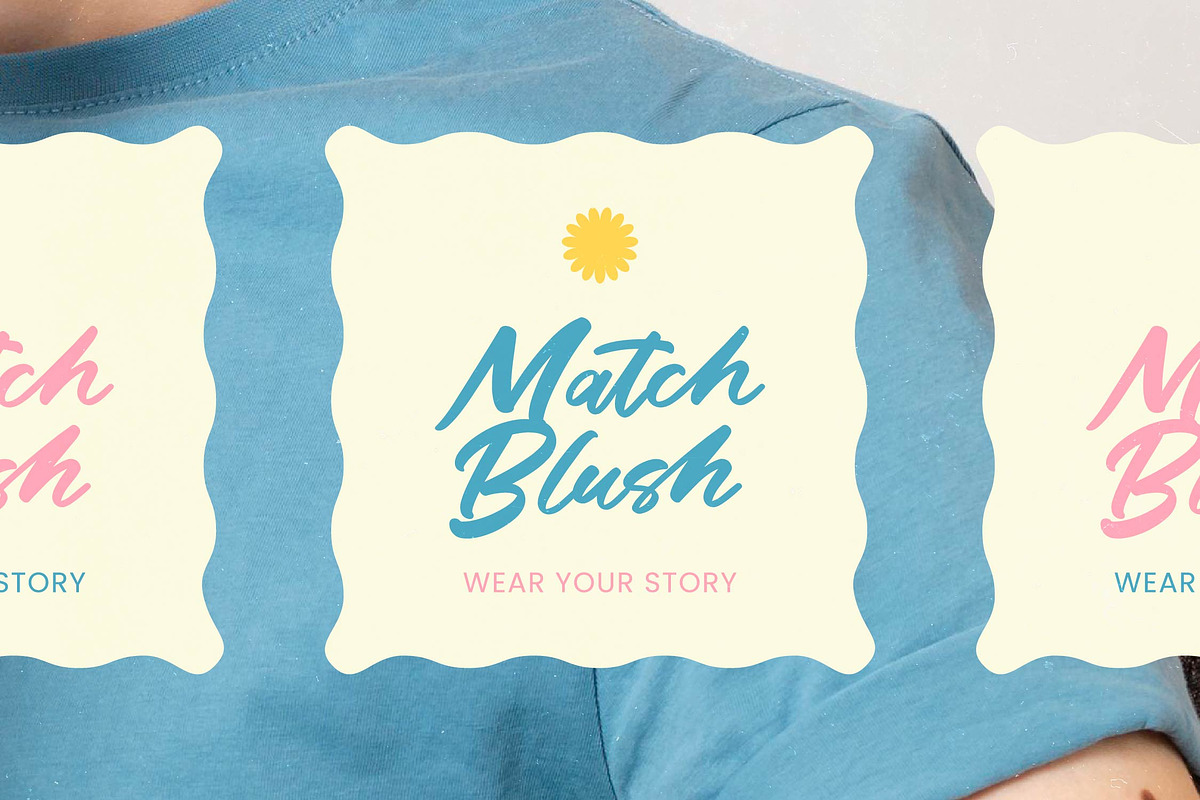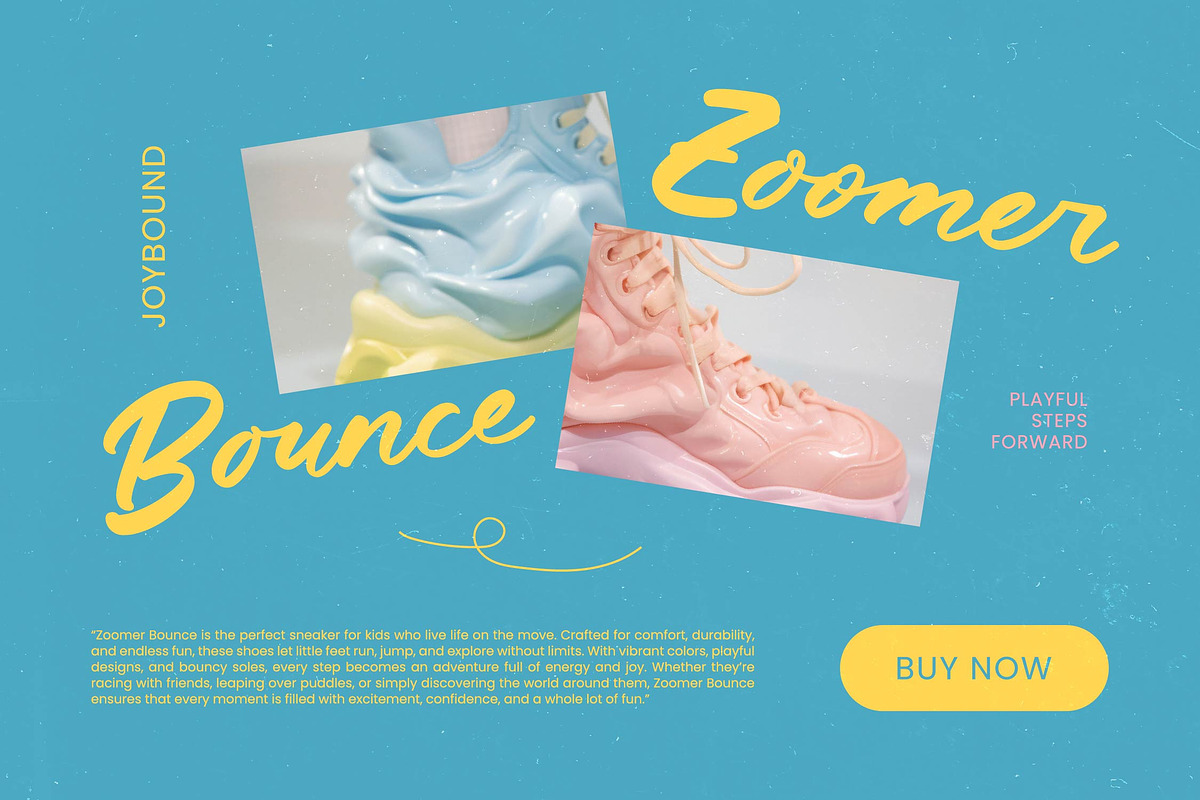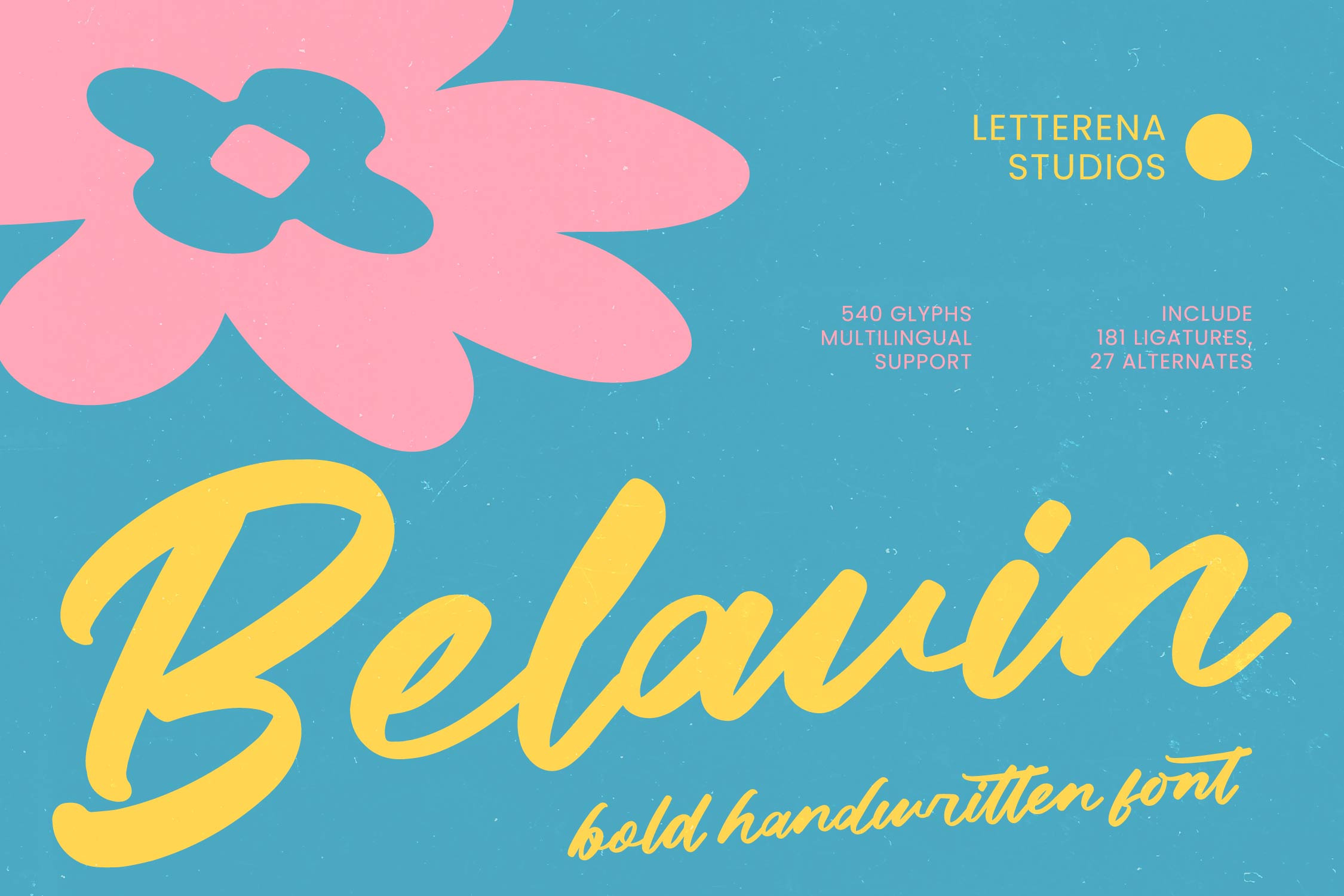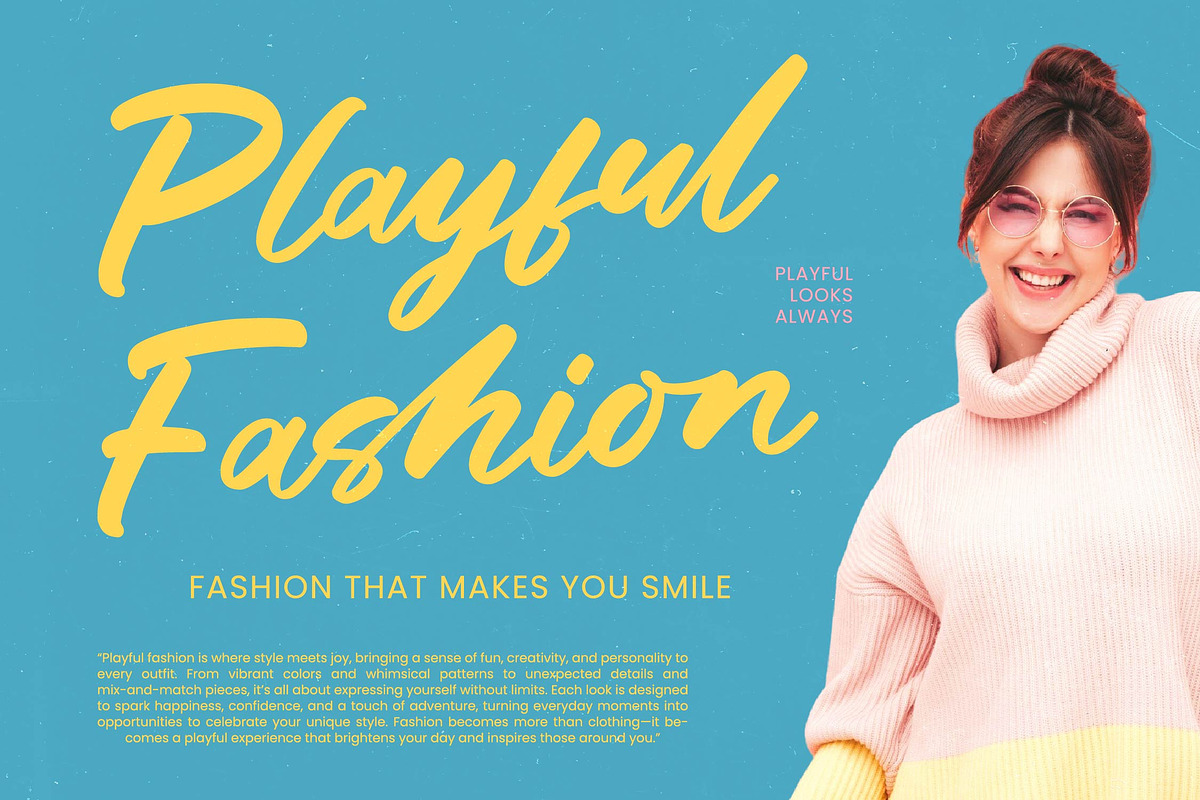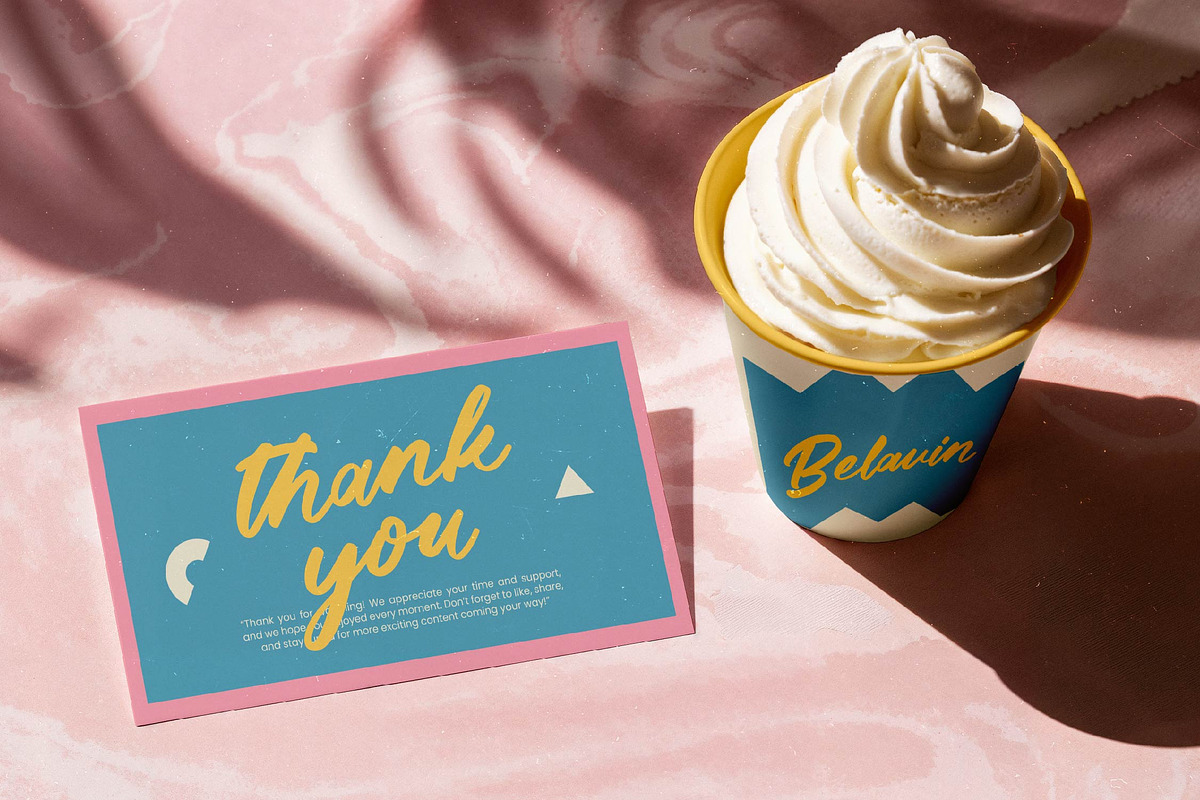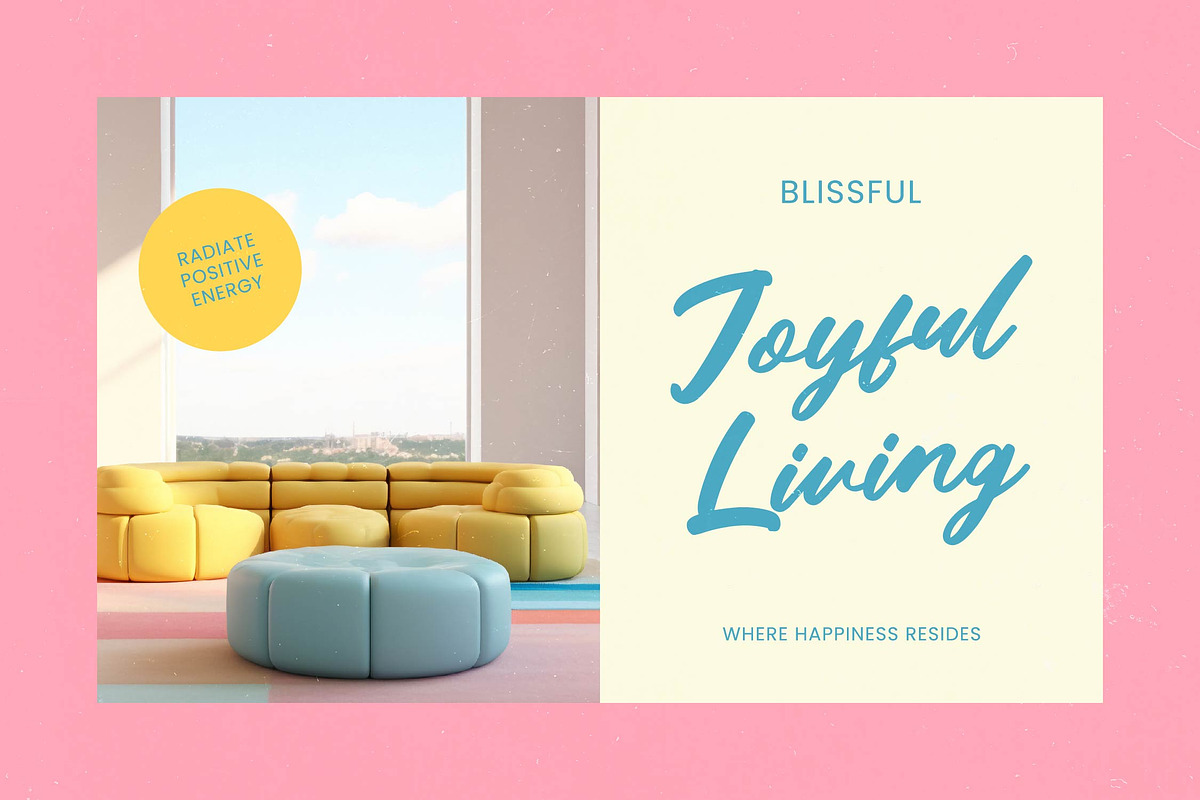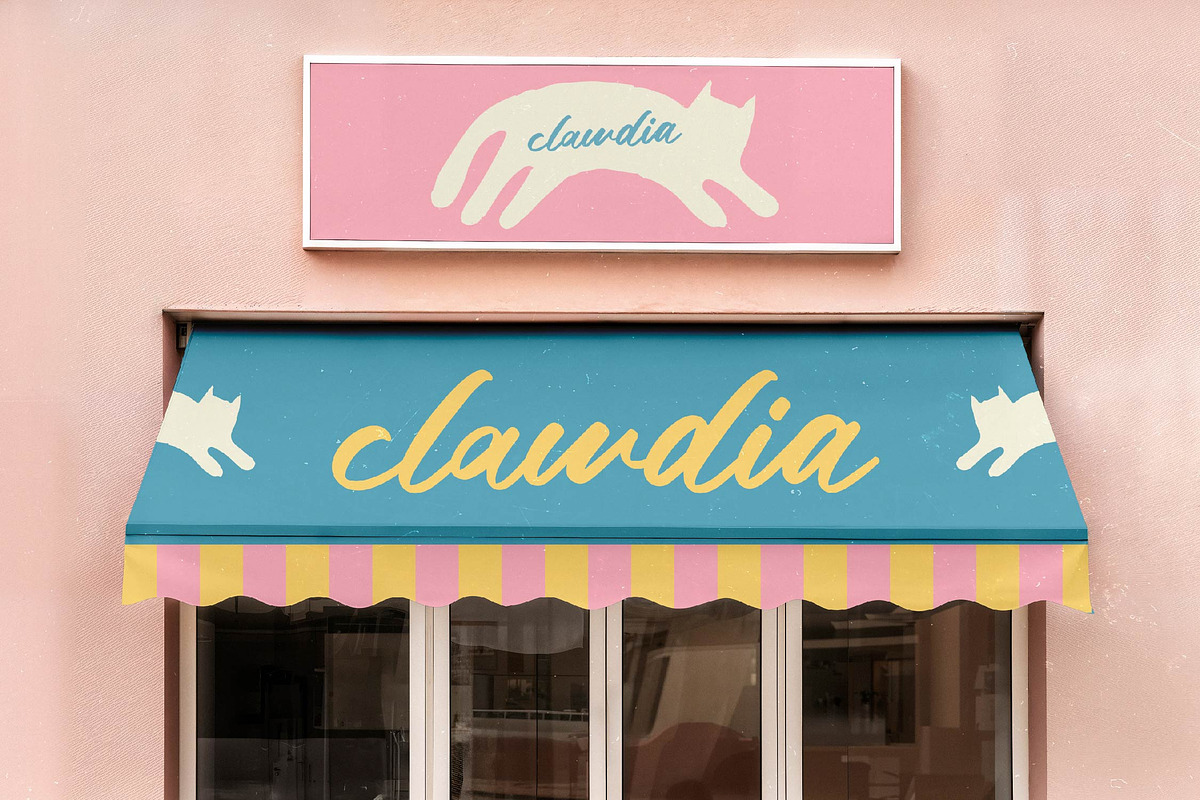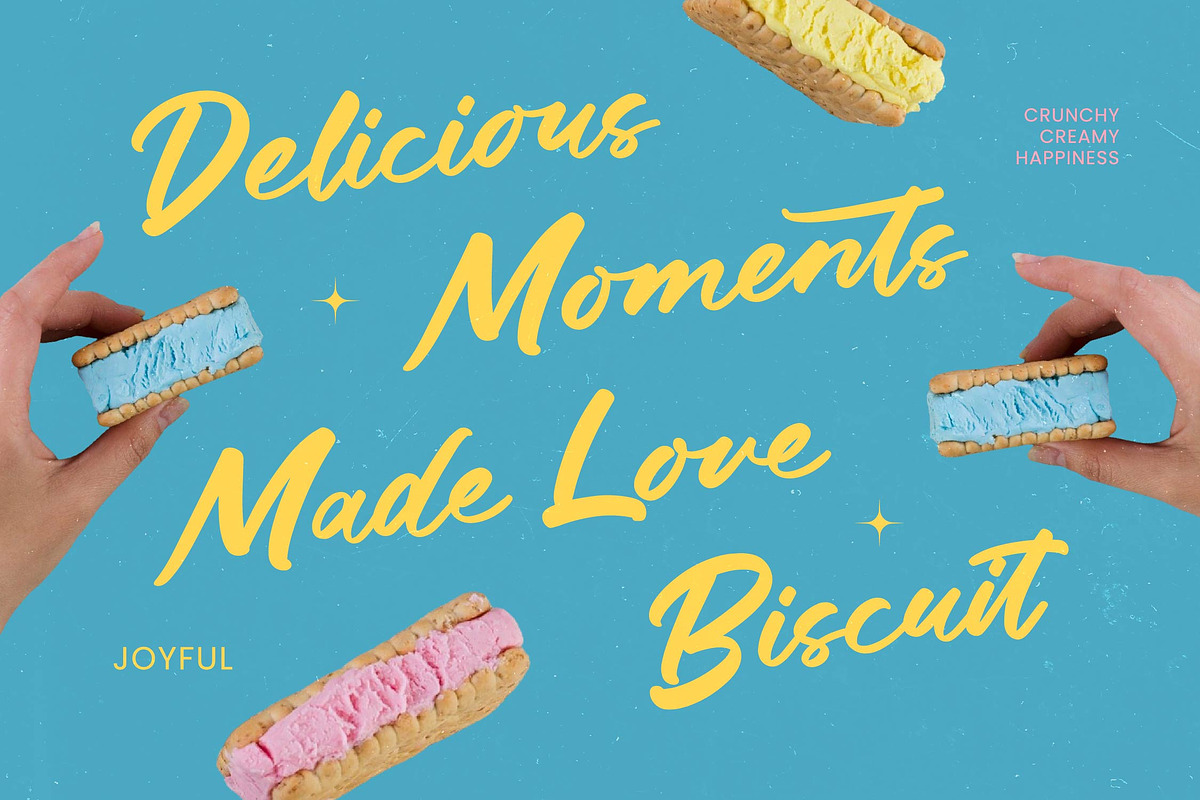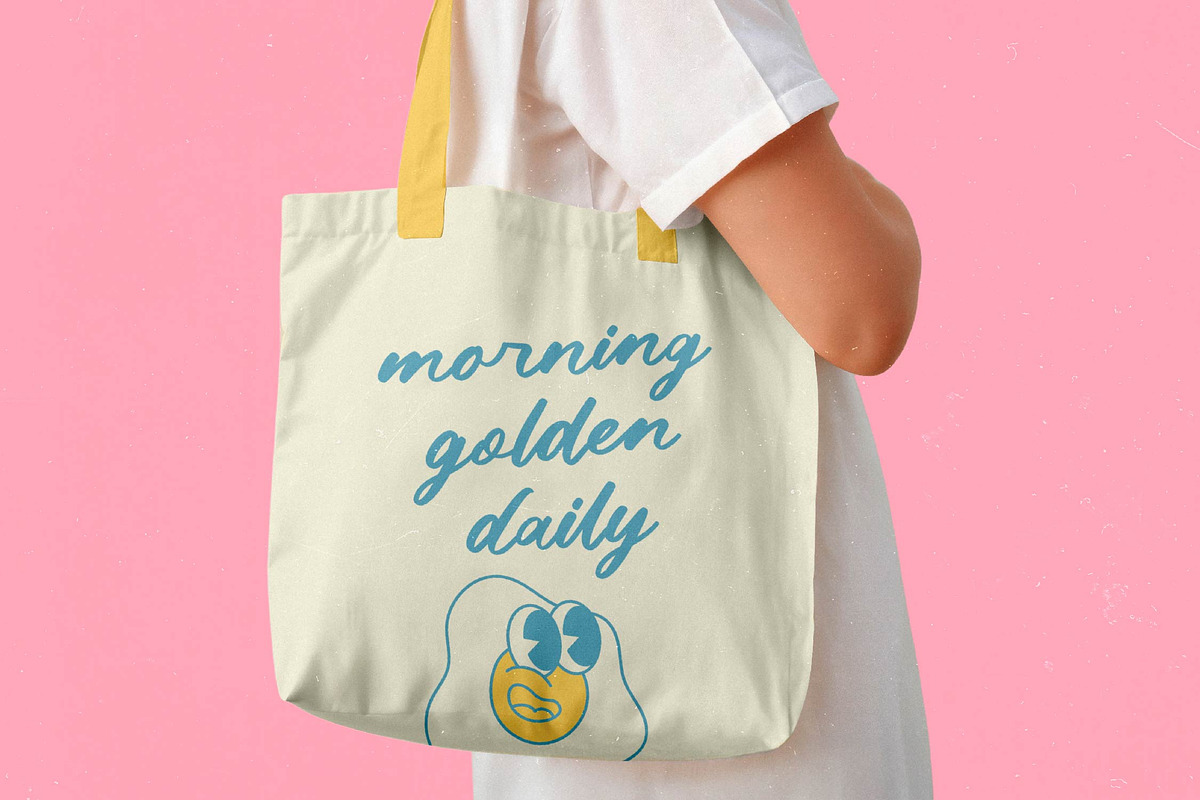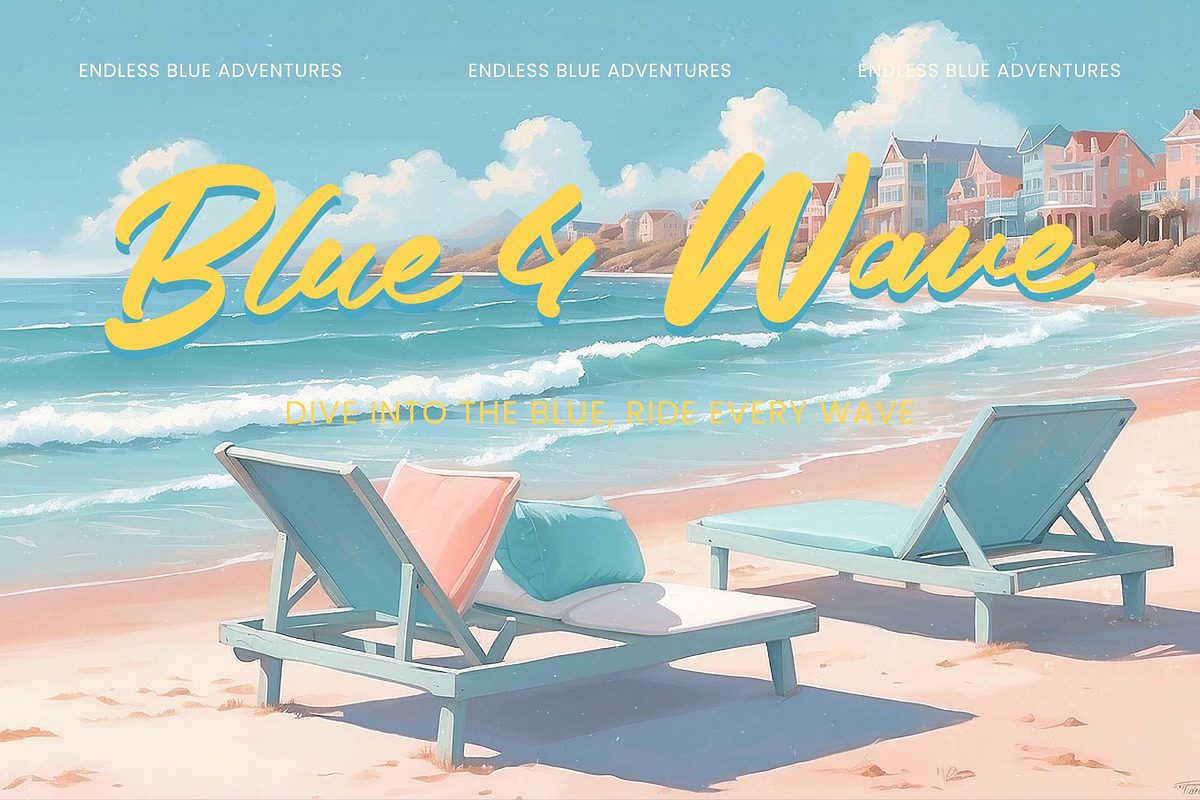
Belavin Bold Handwritten Font
Belavin - Bold Handwritten Font
Elevate your creative vision with a typeface that embodies raw energy and artistic flair. Belavin - Bold Handwritten Font is a masterclass in modern calligraphy, offering a bold, expressive aesthetic that demands immediate attention. Its thick, fluid strokes and organic curves convey a sense of handcrafted authenticity, making it an essential tool for designers seeking to inject genuine personality and warmth into their digital and print projects.
Achieve unparalleled creative flexibility with a robust set of professional typographic features. Boasting an impressive library of 540 glyphs, including 181 ligatures and 27 alternates, this typeface allows for deep customization and unique character combinations. With its extensive multilingual support, Belavin - Bold Handwritten Font adapts seamlessly across global markets, making it incredibly versatile for international projects and diverse linguistic applications.
Transform ordinary designs into high-impact visual statements with the perfect typographic companion. Belavin - Bold Handwritten Font is perfectly suited for luxury branding, high-end packaging, and dynamic editorial design. It is the ideal choice for impactful social media graphics, bespoke logo design, and lifestyle advertising where a personal and human touch is paramount. This font is perfect for any project requiring a sophisticated yet approachable presence.
Secure a timeless asset for your design toolkit that perfectly balances visual boldness with organic elegance. Choosing Belavin - Bold Handwritten Font means investing in a premium design resource that bridges the gap between traditional handwriting and contemporary digital art. Its striking visual weight and seamless flow provide the perfect foundation for brands that want to stand out in a saturated marketplace. Experience the unmatched versatility and distinctive character of this exceptional script font today.